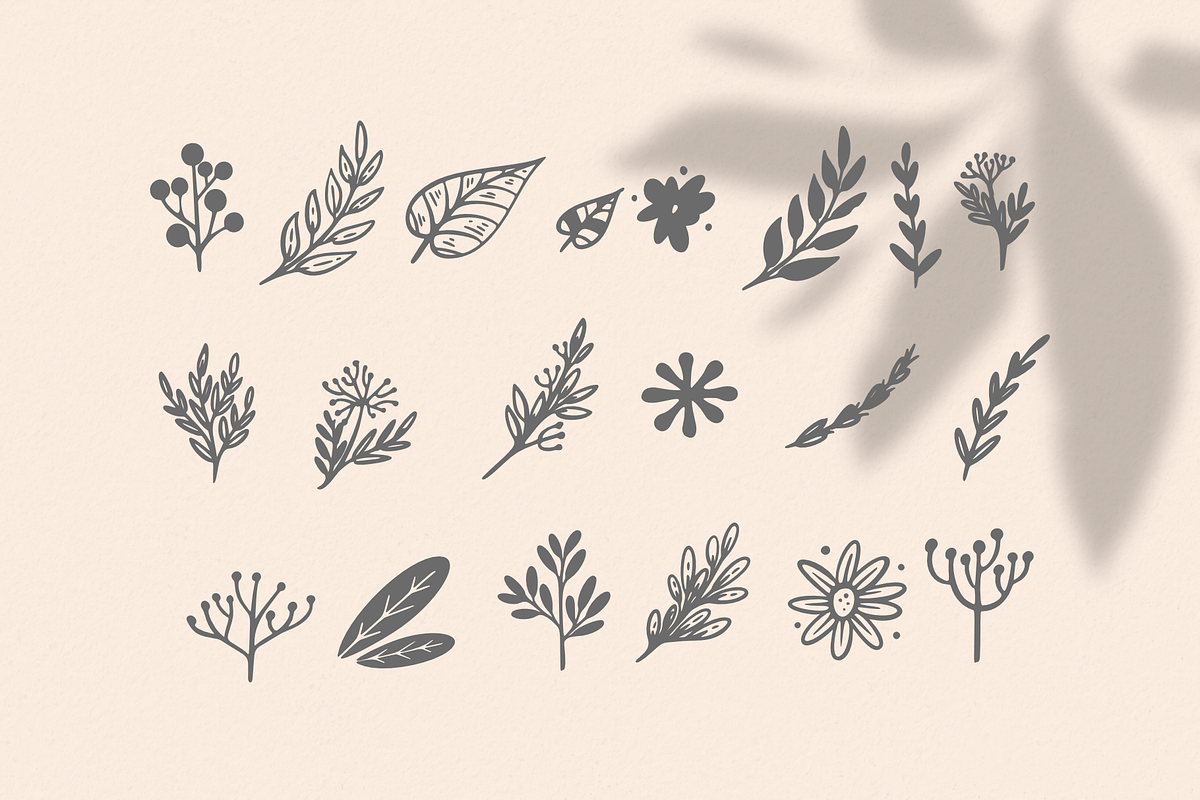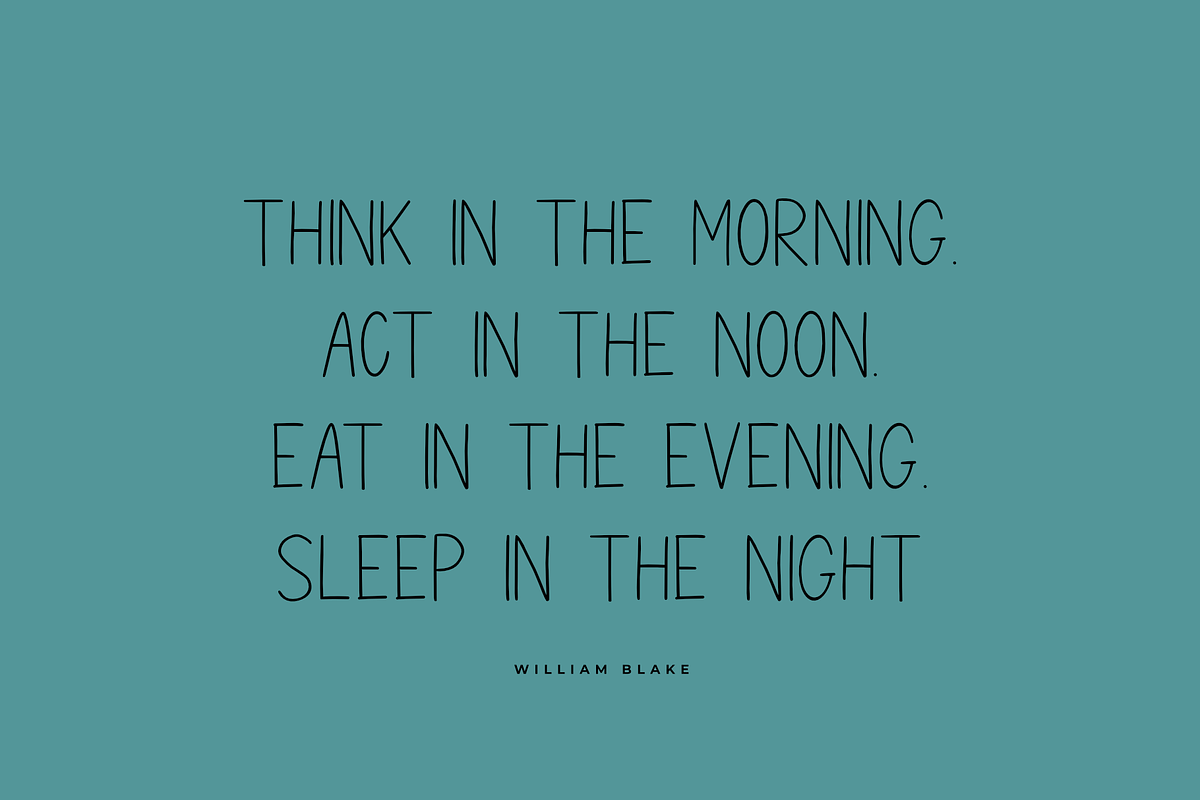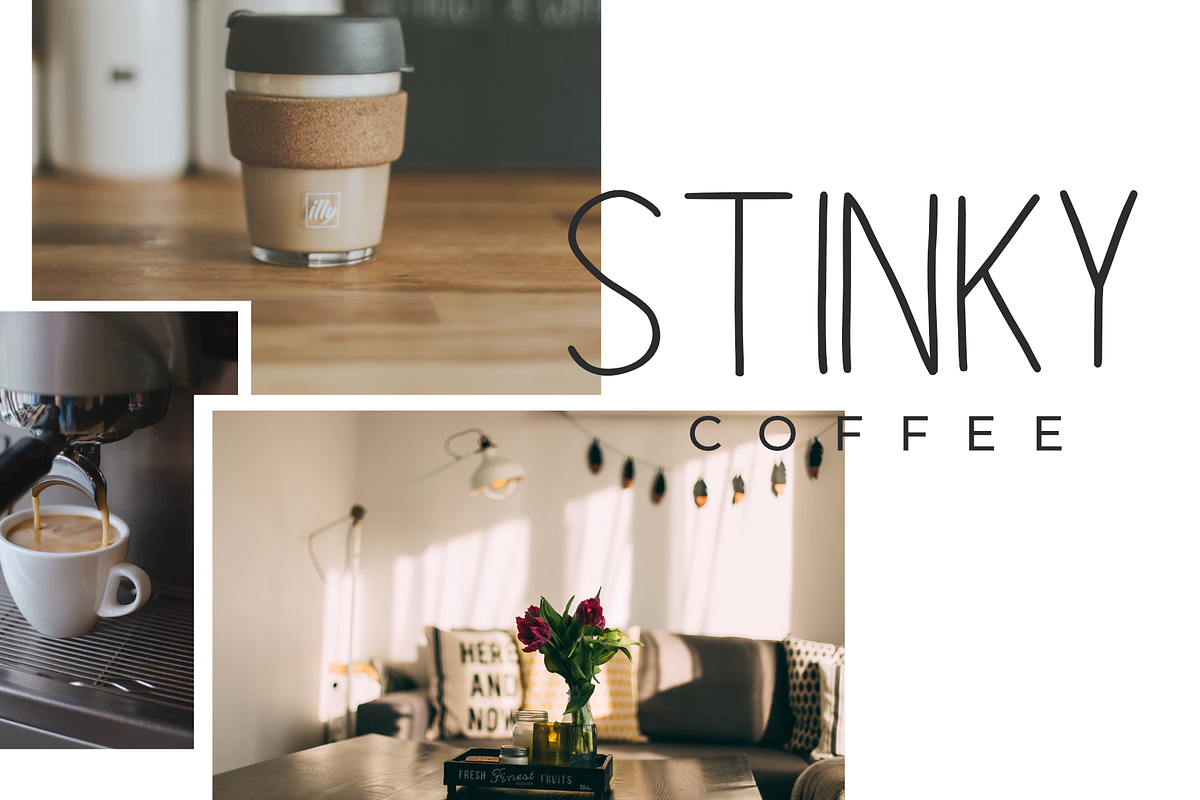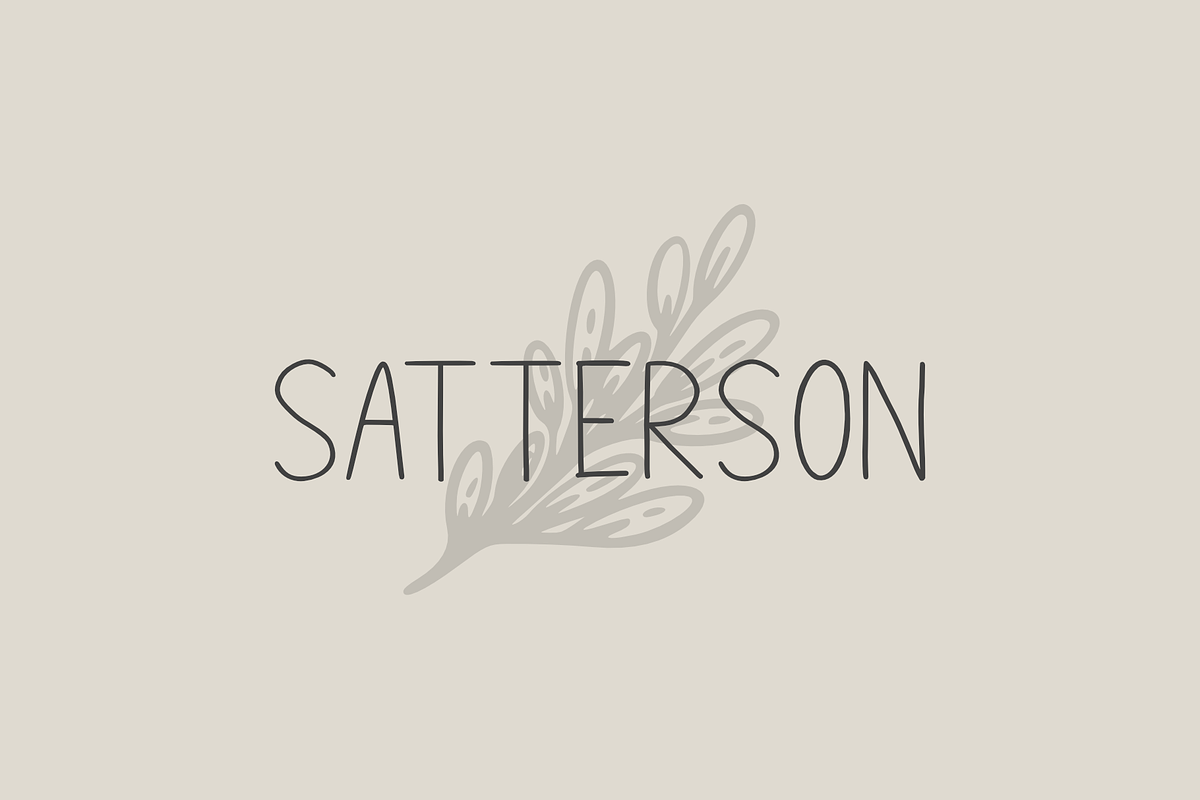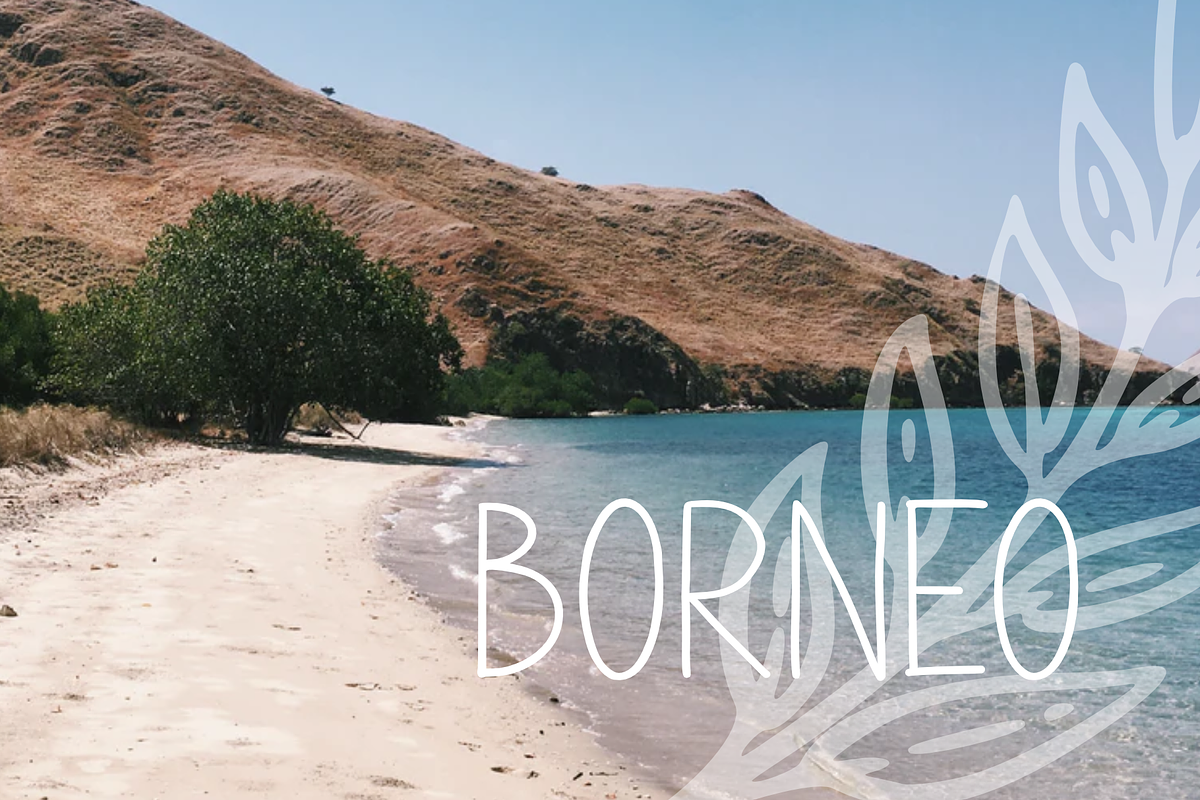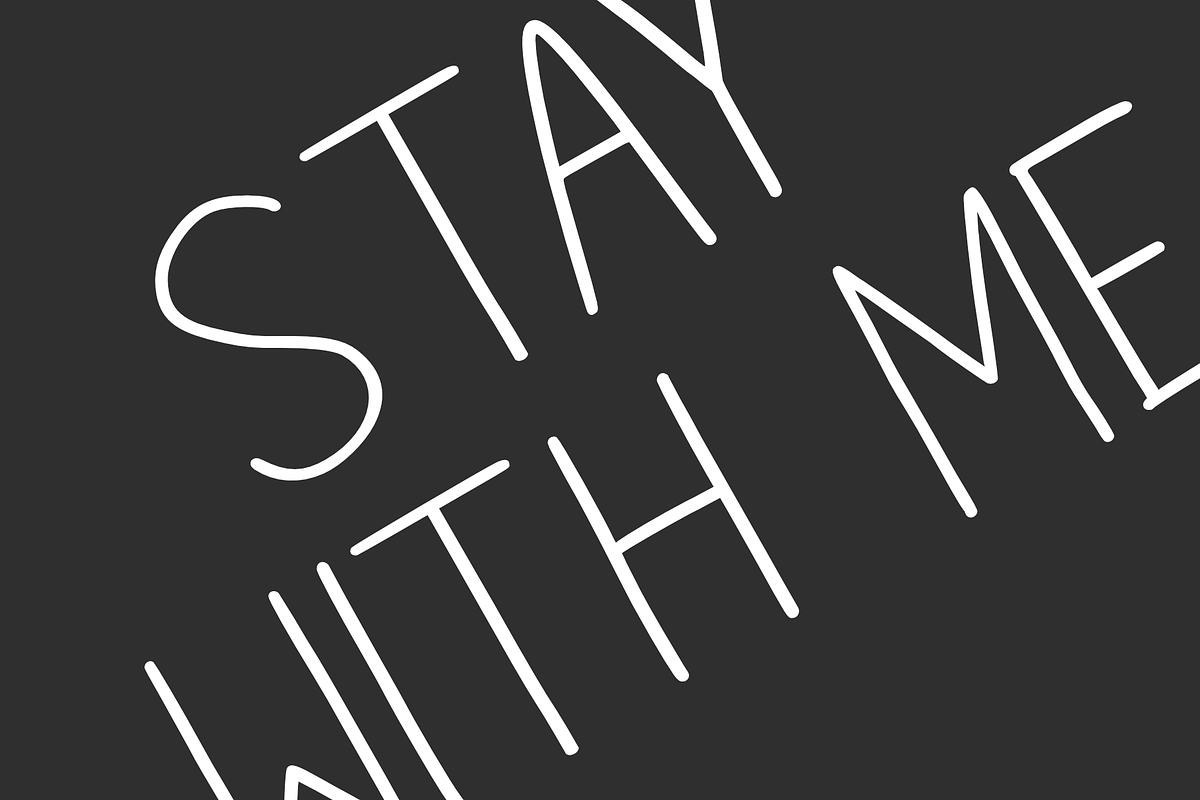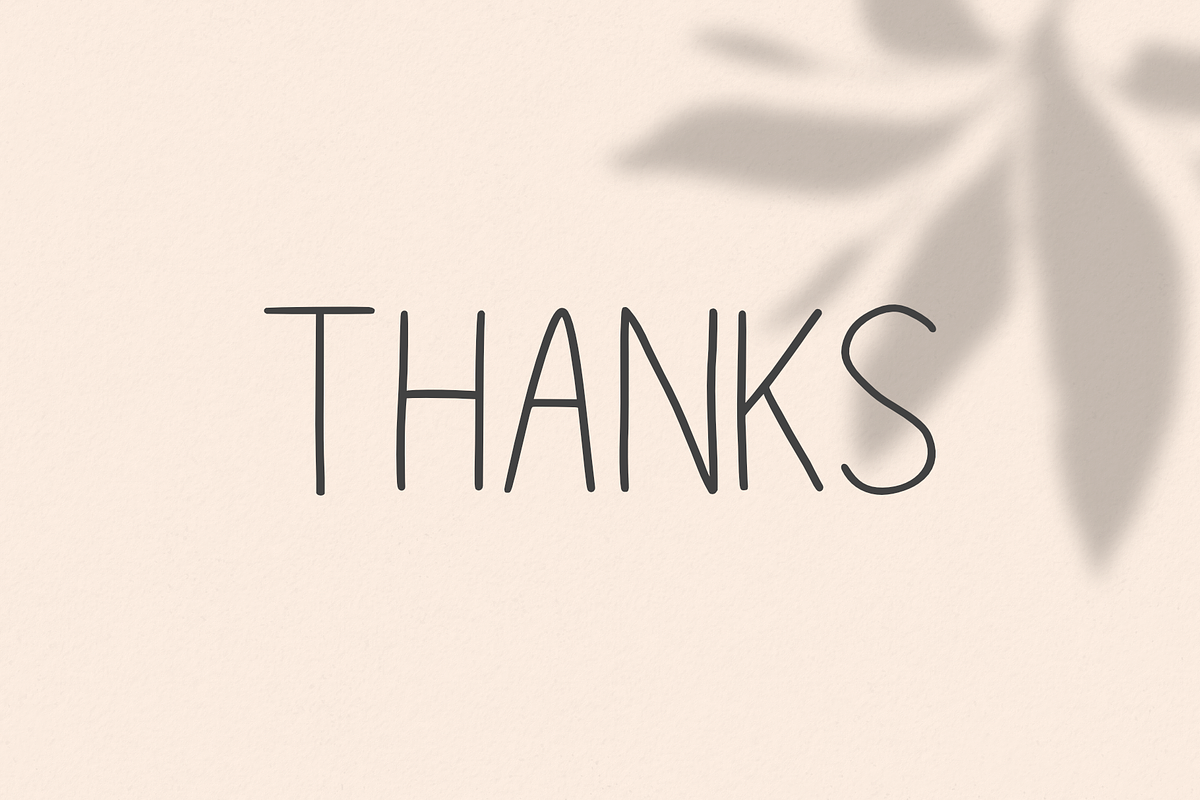
The Nougat Font
Nougat is natural font. this font come with a minimalist and natural form. This font is easy to use and is perfect for logos, posters and more. This font also has several vector flowers available for free. so what are you waiting for?